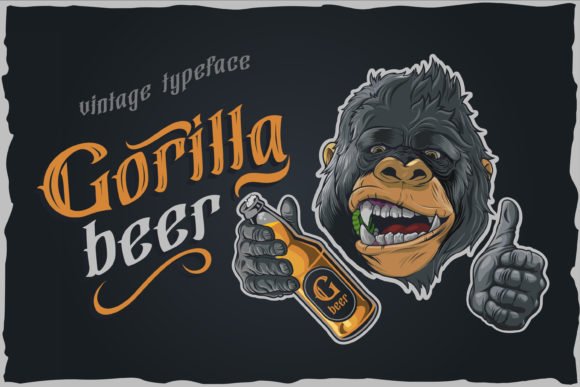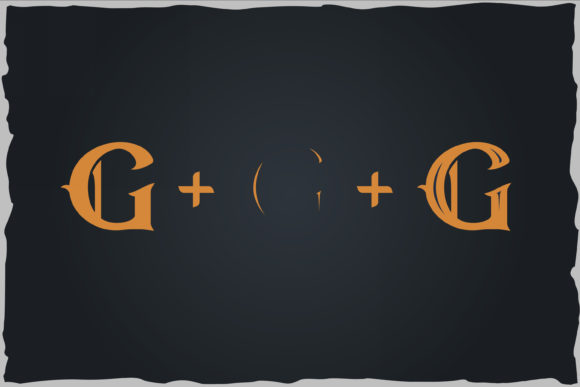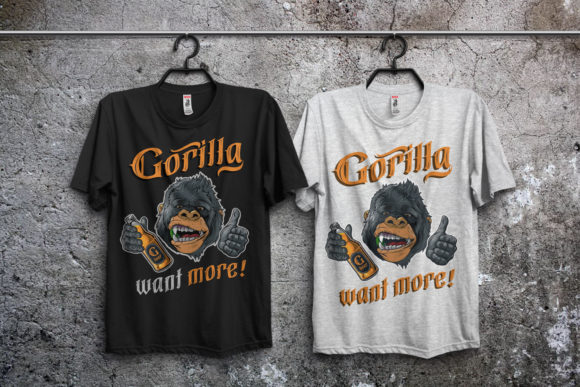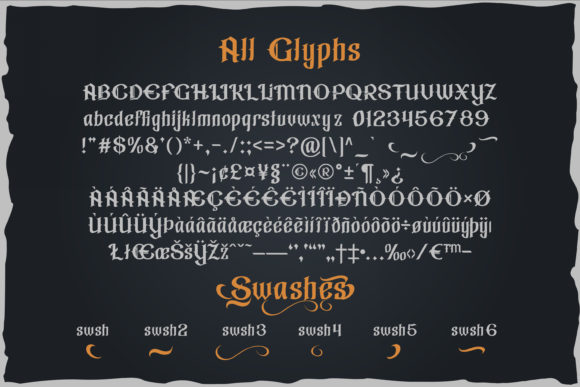
The Perfect Brew for Your Design
Have you ever stared at a blank canvas, struggling to find the perfect font to bring your creative idea to life? It’s a moment we’ve all been through, and it’s precisely when we need a little inspiration to get our creative juices flowing. For designers, the right font can be the difference between a good design and an exceptional one.
Enter Gorilla Beer Font, a unique and authentic blackletter font that’s been expertly designed to make your creations stand out. This font is more than just a typography choice – it’s a statement piece that can take your designs to new heights. Whether you’re a seasoned designer or just starting out, Gorilla Beer Font is a valuable addition to your toolkit.
Gorilla Beer Font Key Features
- Font Family: A unique, hand-drawn font designed to resemble a beer label.
- Unique Characteristics: The font features a distressed, hand-drawn look with subtle texture and imperfections, giving it a unique and eye-catching appearance.
Gorilla Beer Font Review
At first glance, the Gorilla Beer Font caught my eye with its bold and playful style. Here’s what I think works well:
- ✨ Unique and quirky character designs that add a touch of personality to any design project.
- ✨ Great for use in headings and titles, where its boldness really shines.
- ✨ Supports a wide range of languages, making it a versatile choice for global brands.
- ⚠️ The font may be too loud for certain designs, particularly those with a more subtle or minimalist aesthetic.
- ⚠️ Some characters may not be perfectly aligned or spaced, which can be distracting in certain contexts.
Overall, I think the Gorilla Beer Font is a fun and attention-grabbing choice, but it may not be the best fit for every design project. With some careful consideration and adjustments, it can be a great addition to your design toolkit.
Some common use cases for Gorilla Beer Font include:
1. Creating eye-catching beer labels and packaging.
2. Designing brewery logos and branding materials.
3. Adding a fun and playful touch to marketing materials and social media graphics.